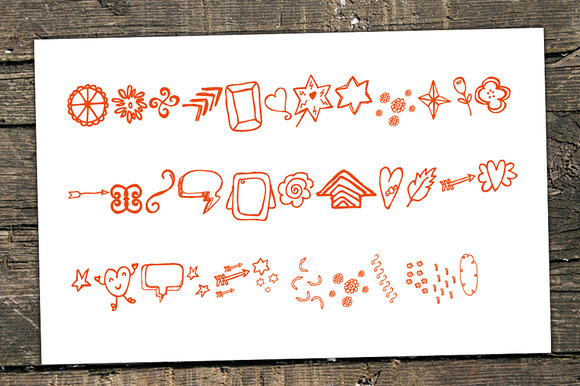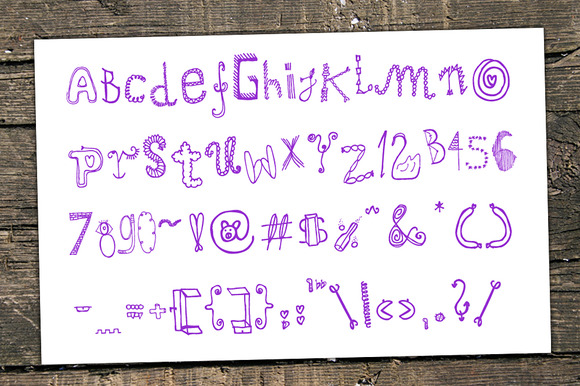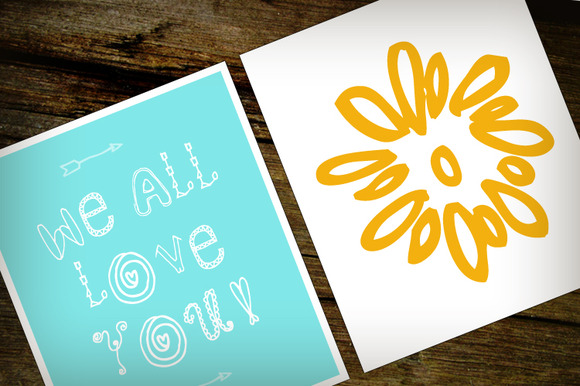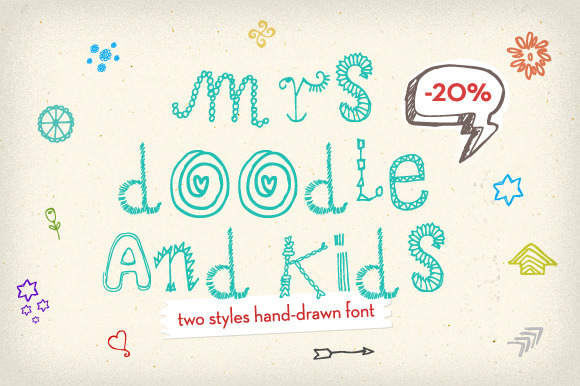
Mrs Doodle Fonts
Let us introduce Mrs Doodle and Mrs Doodle Kids! This is a great proposal for any hand-crafted printed and digital goods related with kids, love, happiness…
Mrs Doodle represents all numerals (0-9) and latin letters (A-Z) with a funny style.
Mrs Doodle & Kids represent a lot of doodle goods as flowers, hearts, ornaments, flourishes, arrows, balloons, stars and others.
For a details please see 3rd and 4th screenshot or simply start playing with it! 🙂